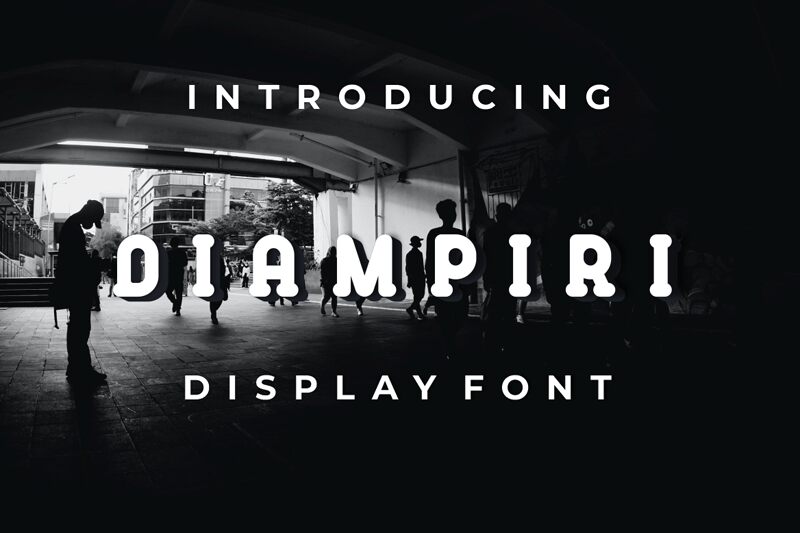
Diampiri font by Gilang Ternadho of Maikohatta is a structured and monospaced typeface that’s enjoyable to look at. It is presented in a geometric and industrial style which brings retro-futuristic fashion to the table. The Diampiri font also has squared angles, impeccable legibility, and an overall futuristic look.
Use this free techno display font in creative projects like movie titles, band album covers, music posters, typography art pieces, game interfaces, magazine covers, website headers design projects alike.